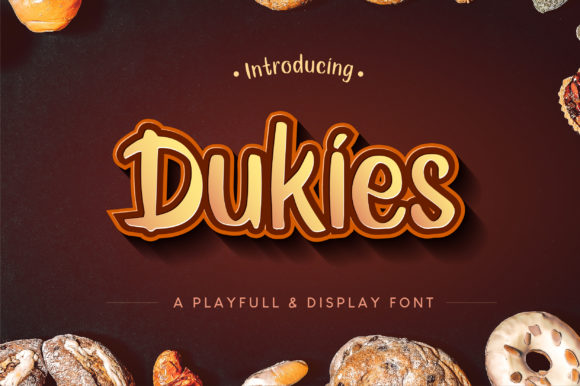
Dukies Font: The Ultimate Display Font for Joyful Designs
In the world of typography, fonts play a crucial role in conveying the tone and personality of a design. Whether you’re working on a branding project, a marketing campaign, or a creative endeavor, the right font can make all the difference. If you’re looking for a font that can add a touch of joy and playfulness to your designs, look no further than Dukies Font. In this article, we’ll explore the features and benefits of Dukies Font, and how it can elevate your creative projects.
What is Dukies Font?
Dukies Font is a cute and playful display font designed to bring a smile to your face. Its unique and quirky style makes it perfect for designs that require a touch of whimsy and fun. Whether you’re creating a logo, a poster, or a social media graphic, Dukies Font is sure to add a dash of personality to your work.
Key Features of Dukies Font
• Playful and Cute: Dukies Font is designed to be playful and cute, making it perfect for designs that require a touch of fun and whimsy.
• Display Font: Dukies Font is a display font, which means it’s designed to be used at larger sizes, making it perfect for headlines, titles, and other display text.
• Unique and Quirky: Dukies Font has a unique and quirky style that sets it apart from other fonts.
• Easy to Read: Despite its playful style, Dukies Font is easy to read, even at smaller sizes.
Benefits of Using Dukies Font
So why should you use Dukies Font in your designs? Here are just a few benefits:
• Adds a Touch of Joy: Dukies Font is designed to bring a smile to your face, making it perfect for designs that require a touch of joy and whimsy.
• Stand Out from the Crowd: Dukies Font is a unique and quirky font that will help your designs stand out from the crowd.
• Perfect for Creative Projects: Dukies Font is perfect for creative projects, such as branding, marketing, and advertising.
Tips and Tricks for Using Dukies Font
Here are a few tips and tricks for using Dukies Font:
• Use it for Headlines: Dukies Font is perfect for headlines and titles.
• Experiment with Colors: Dukies Font looks great in a variety of colors, so don’t be afraid to experiment.
• Use it for Branding: Dukies Font is perfect for branding projects, such as logos and business cards.
• Pair it with Other Fonts: Dukies Font pairs well with other fonts, so don’t be afraid to experiment with different combinations.
In conclusion, Dukies Font is a cute and playful display font that’s perfect for adding a touch of joy and whimsy to your designs. Its unique and quirky style makes it stand out from other fonts, and its ease of use makes it perfect for creative projects. Whether you’re working on a branding project, a marketing campaign, or a creative endeavor, Dukies Font is sure to elevate your designs and bring a smile to your face.
What is Dukies Font?
Dukies Font is a cute and playful display font designed to bring a touch of joy and whimsy to your designs.
Is Dukies Font easy to use?